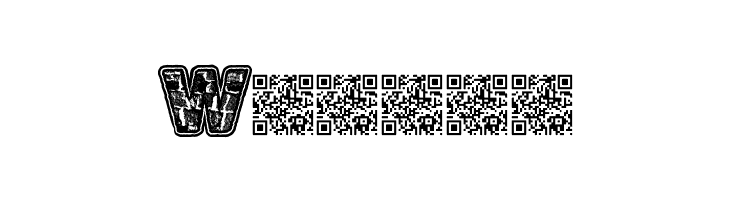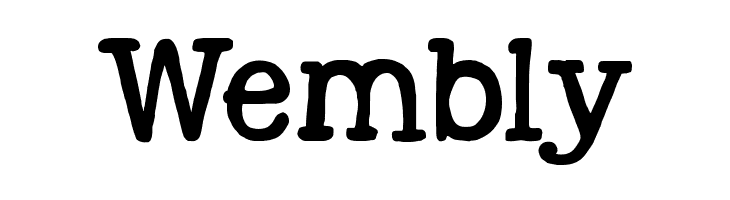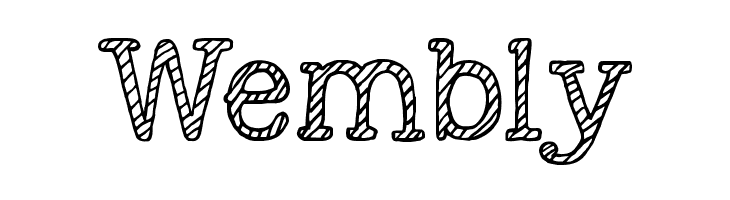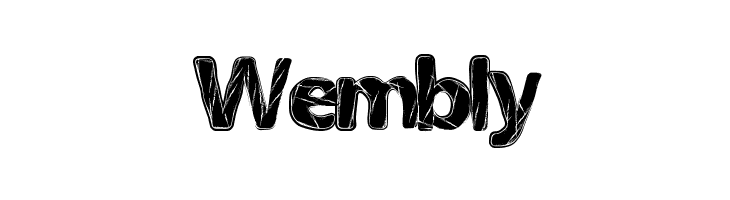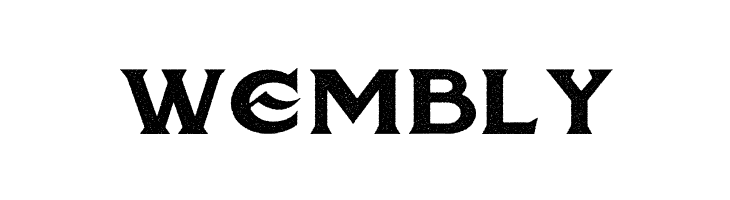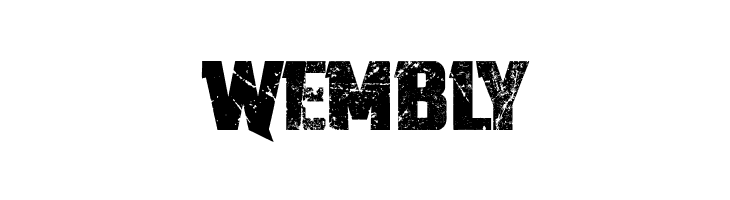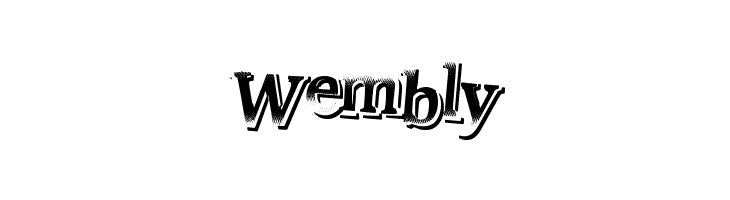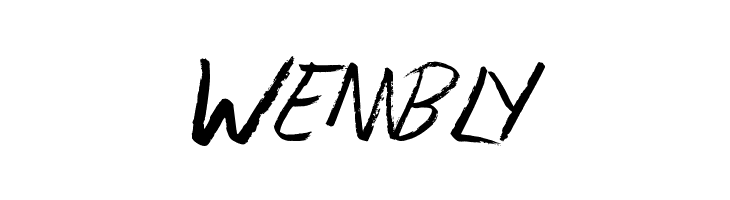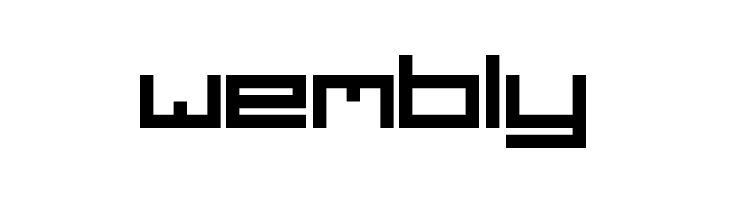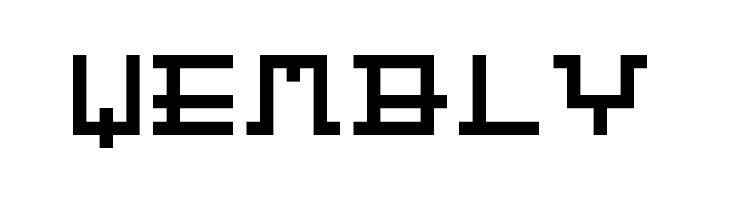
A bold, textured font with a rock-like, decorative style.
A bold, distressed stencil font with an industrial, grunge aesthetic.
A playful, rounded font with a hand-drawn appearance.
A playful, hand-drawn font with a sketched, rope-like appearance.
A bold, three-dimensional font with a dynamic and playful style.
A bold, distressed font with a rugged, vintage appearance.
A bold, dynamic font with a 3D shadow effect and playful structure.
A bold, expressive brush script font with dynamic strokes and a handwritten feel.
A bold, 3D-effect font with a dynamic, italicized style.
A bold, geometric font with a digital, futuristic style.
A pixelated, blocky font with a retro digital aesthetic.
A distressed, grunge-style font with a rebellious and edgy appearance.
A geometric, pixelated font with a retro digital aesthetic.
A playful, handwritten font with bold, irregular strokes.
Bold geometric and optical illusion symbols with high contrast and intricate patterns.
Bold, high-contrast geometric symbols with an optical art style.
A bold, distressed font with a rugged, grunge-like texture.
A bold, striped font with a retro, disco-inspired aesthetic.
A playful, hand-drawn font with tall, narrow letters and a whimsical style.
A playful, handwritten font with a casual and informal style.
A bold, expressive handwritten font with dynamic strokes.
A raw, edgy font with sharp, claw-like strokes and a chaotic, rebellious style.
A bold, playful font with a comic book style, featuring characters in jagged starburst shapes.
A whimsical and decorative font with playful curls and swirls.
A bold, distressed font with a cracked texture, perfect for gritty designs.
A bold, italic font with sharp angles and a dynamic, edgy style.